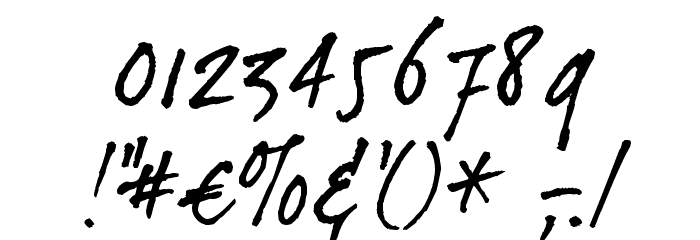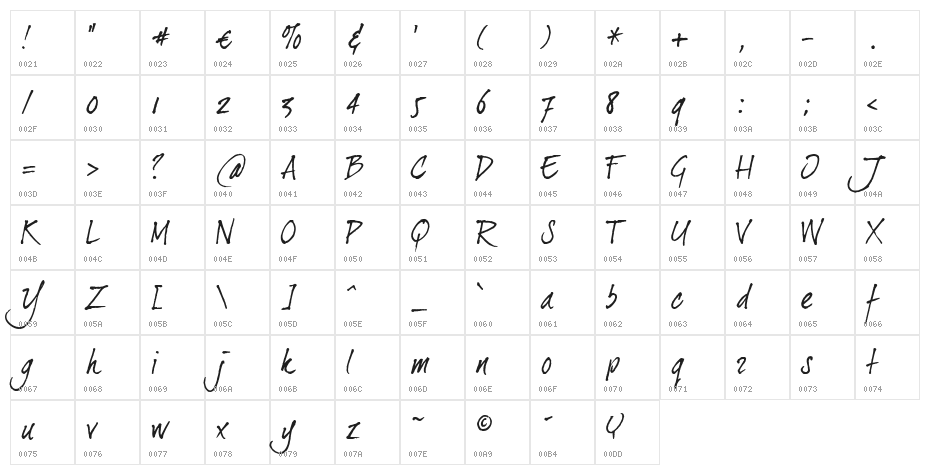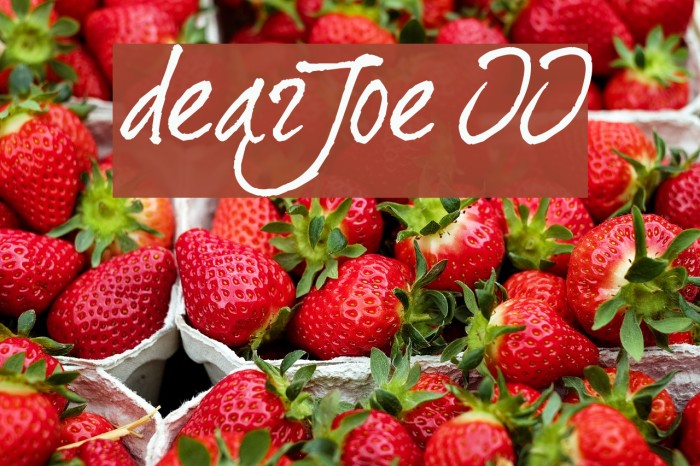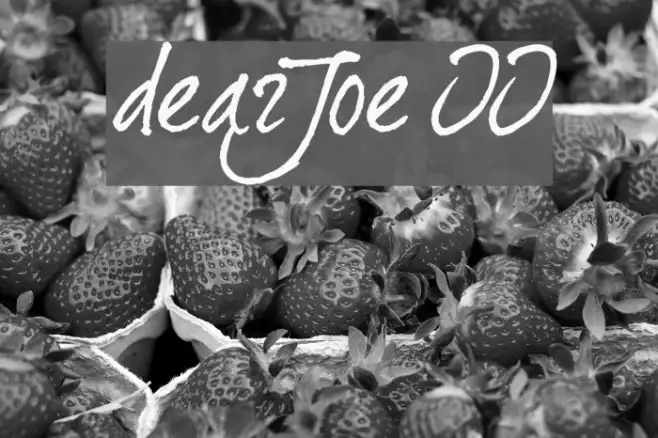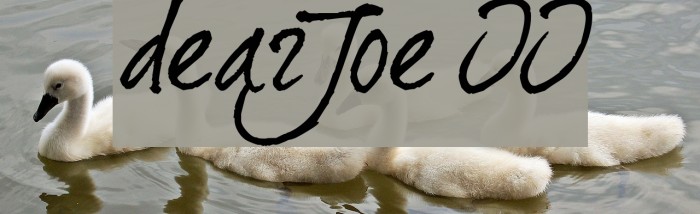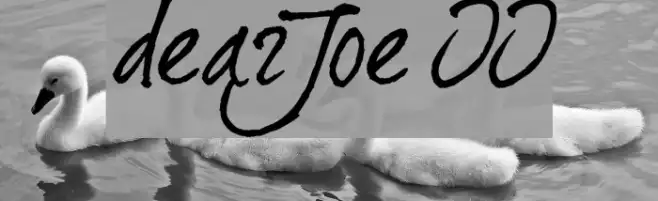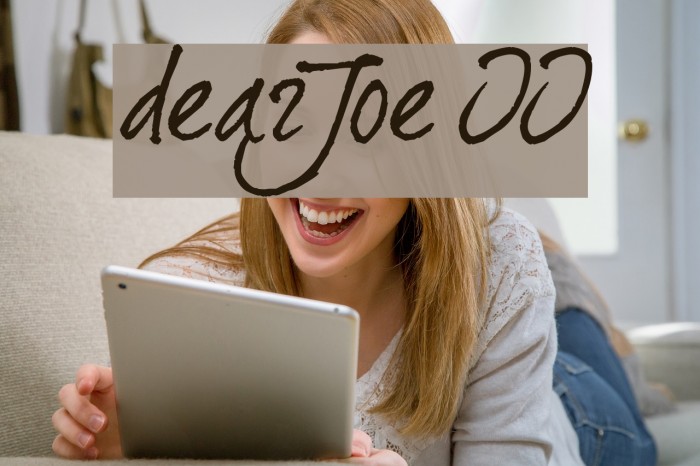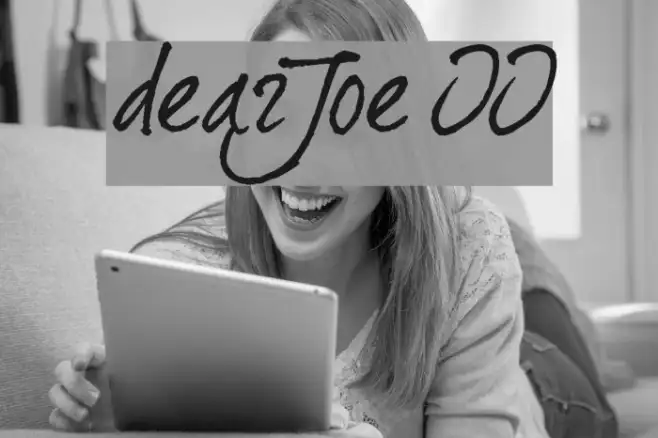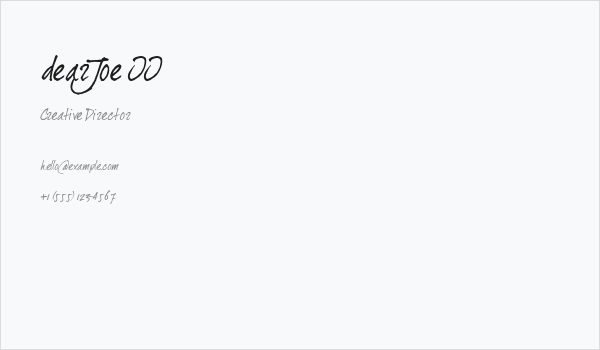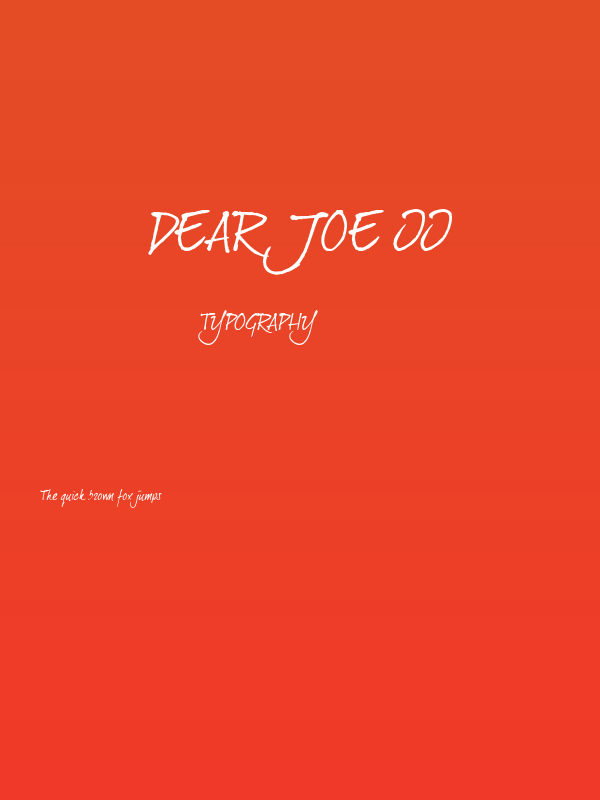
dearJoe II Font
dearJoe II Description
This font exudes a casual, handwritten style with a dynamic and expressive flair. The strokes are fluid and slightly irregular, giving it a personal and authentic touch. The uppercase letters are bold and confident, while the lowercase letters maintain a more relaxed and approachable feel. The numerals and special characters are consistent with the overall style, adding to its cohesive appearance. The font's organic and spontaneous nature makes it ideal for projects that require a personal or artistic touch.
| Overall Style | Casual, Artistic |
| Proposed Projects | Ideal for greeting cards, personal branding, artistic projects, and informal invitations. |